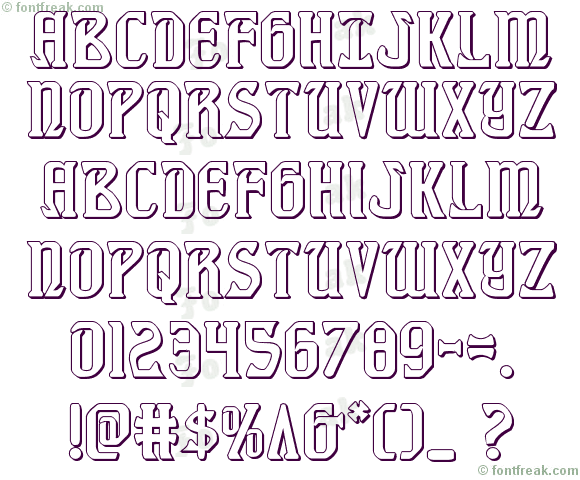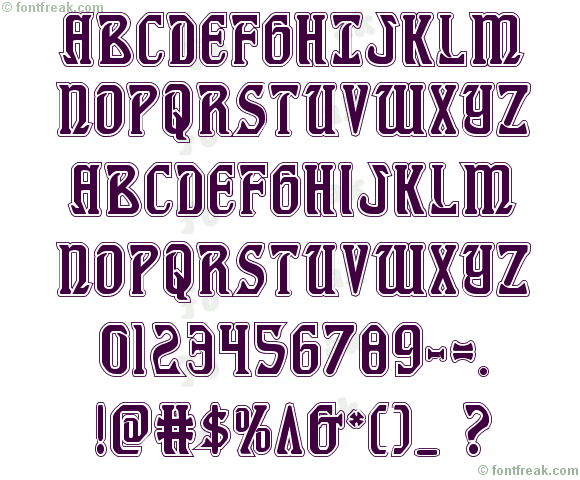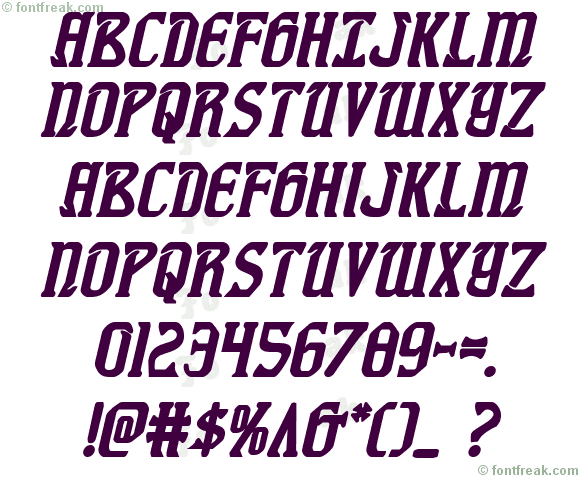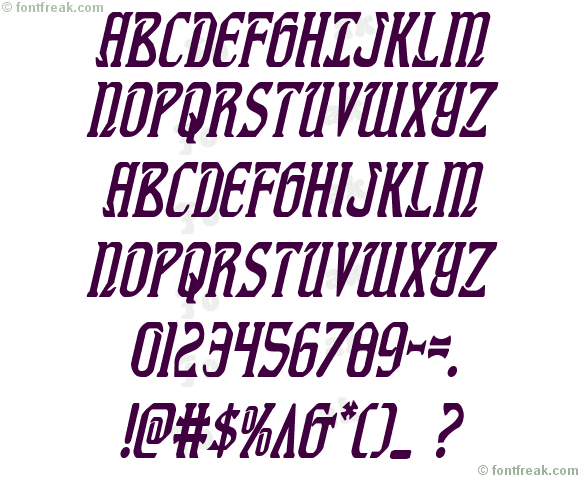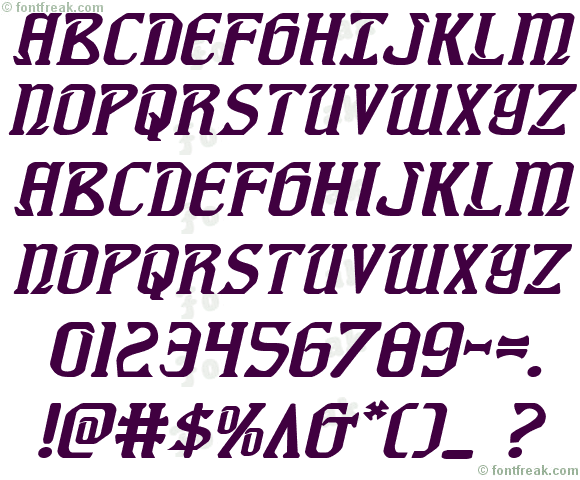
Fiddler's Cove Bold
Fiddler's Cove Bold by Daniel Zadorozny is a striking display font that captures attention with its unique design. As a part of the Iconian Fonts collection, this typeface features an expanded, bold style that is both visually impactful and versatile. The font showcases a distinctive decorative quality with its playful curves and sharp angles, giving it a dynamic appearance. The stroke weight is consistent yet substantial, providing a strong presence on any medium. The characters exhibit moderate contrast, making them easily legible while still maintaining a stylish flair.
This font is ideal for a variety of applications. Graphic designers often turn to Fiddler's Cove Bold for creating eye-catching movie posters, where its boldness can convey the drama or excitement of the film. It also works wonderfully for restaurant menus, adding a touch of personality that can attract diners. Additionally, this font is a great choice for event invitations, including weddings and parties, where its unique character can set the tone for the celebration. Small business owners looking to develop memorable branding materials will find that Fiddler's Cove Bold can enhance logos and promotional items, helping to establish a strong identity.